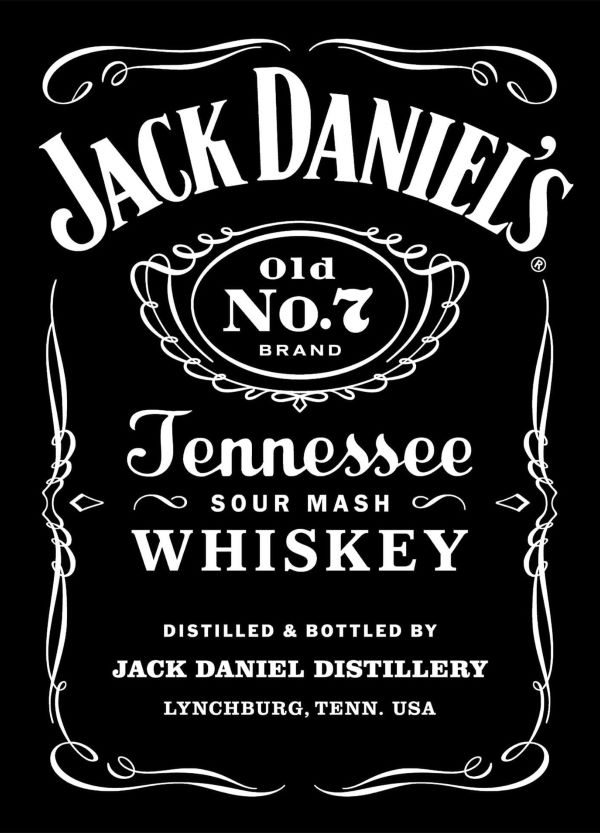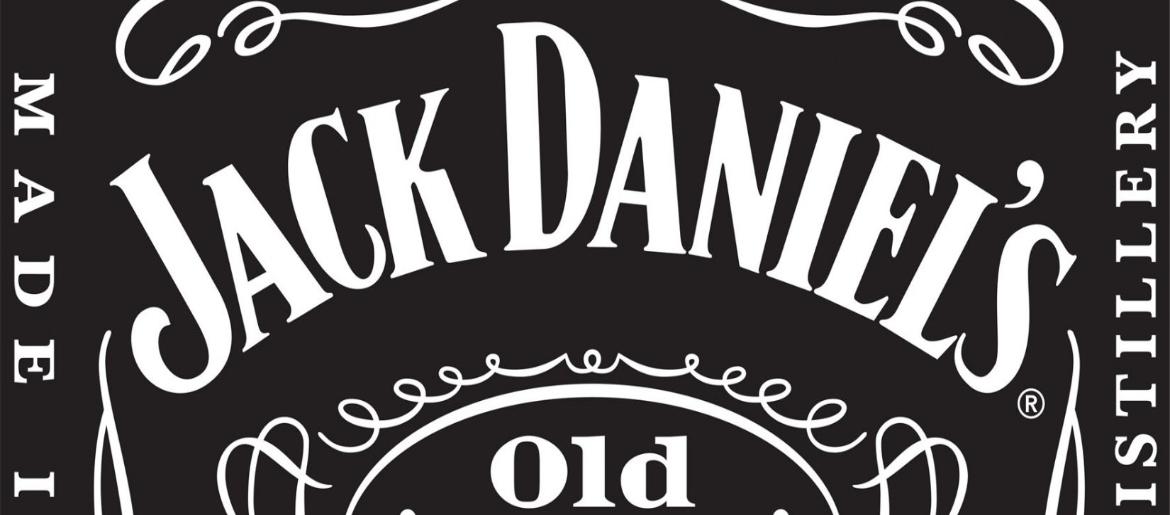
Jack Daniels Font
What Font is Used in the Jack Daniels Logo?
Jack Daniel’s font combines 2 distinctive typefaces (very close) to create its legendary square label: the bold Black No. 7 font closely matches the “Jack Daniel’s” lettering with its condensed, Victorian-era style, while Milk Script replicates the elegant script used for “Tennessee.” Though both are premium fonts, free alternatives like LT Carpet Medium and Berkerya can approximate their contrasting styles. This combination of bold block letters and flowing script perfectly embodies Jack Daniel’s heritage as America’s oldest registered distillery, balancing frontier ruggedness with Southern gentleman refinement.
About Jack Daniel’s
Jack Daniel’s is a Tennessee whiskey produced by the Jack Daniel Distillery in Lynchburg, Tennessee, established in 1866 by Jasper Newton “Jack” Daniel. Distinguished by its charcoal mellowing process known as the Lincoln County Process, Jack Daniel’s Old No. 7 became America’s best-selling whiskey. The iconic square bottle and black label represent authentic American craftsmanship, Southern tradition, and smooth sipping whiskey enjoyed worldwide for over 150 years.